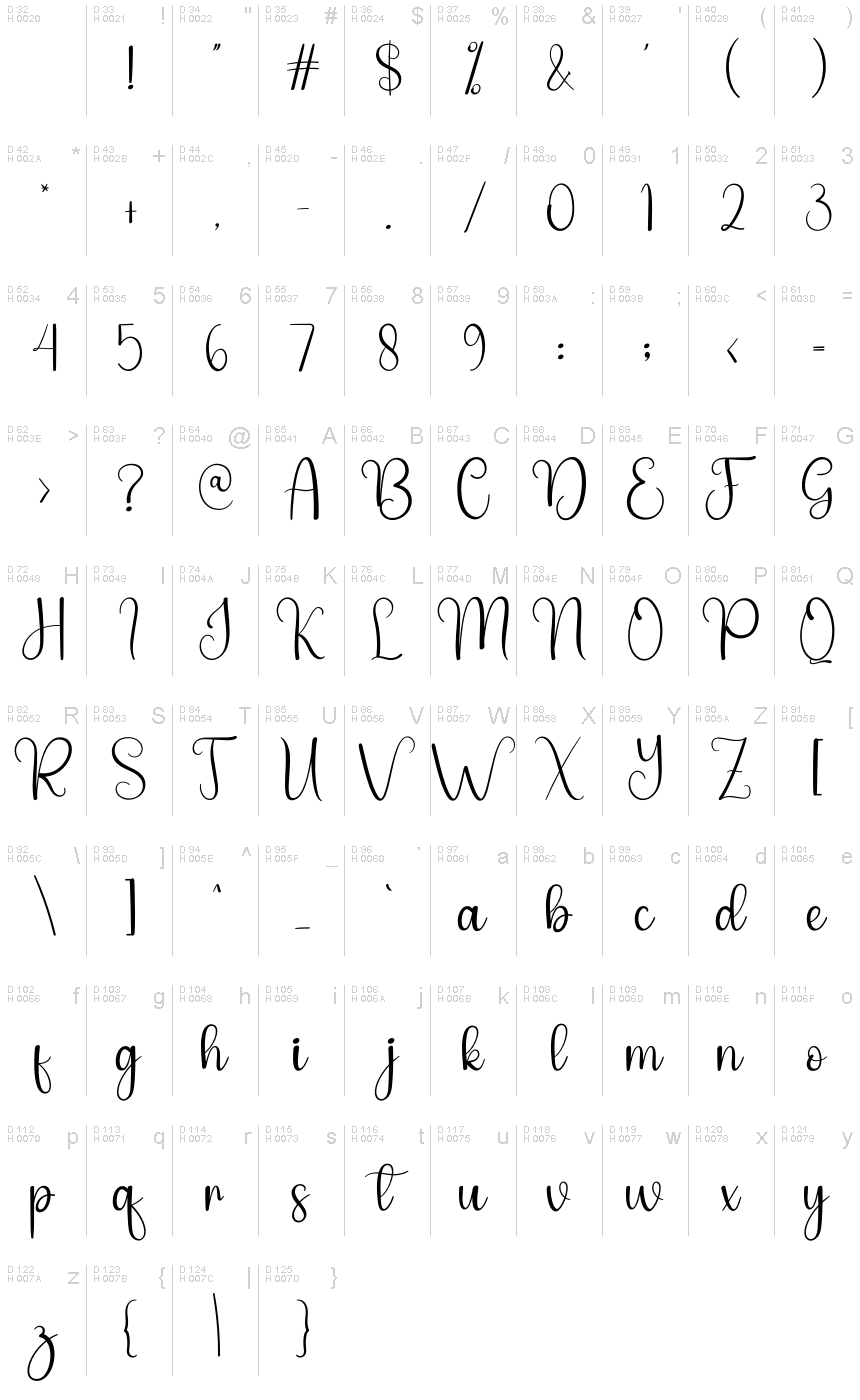
School Handmade
School Handmade is a delightful handwritten font that exudes a warm, personal charm. Crafted by designer Andi Moz, this font showcases a fluid, organic script with a casual, almost calligraphic flair. The varied letter forms and gentle flourishes lend a sense of individual expression, making it an excellent choice for invitations, stationery, and other design projects seeking a heartfelt, handcrafted aesthetic.
Its versatility extends to a range of applications, from heartwarming wedding suites to whimsical branding and packaging designs. The font's distinct personality adds a touch of authenticity and character, making it a compelling option for creatives aiming to cultivate a genuine, artisanal feel in their work.